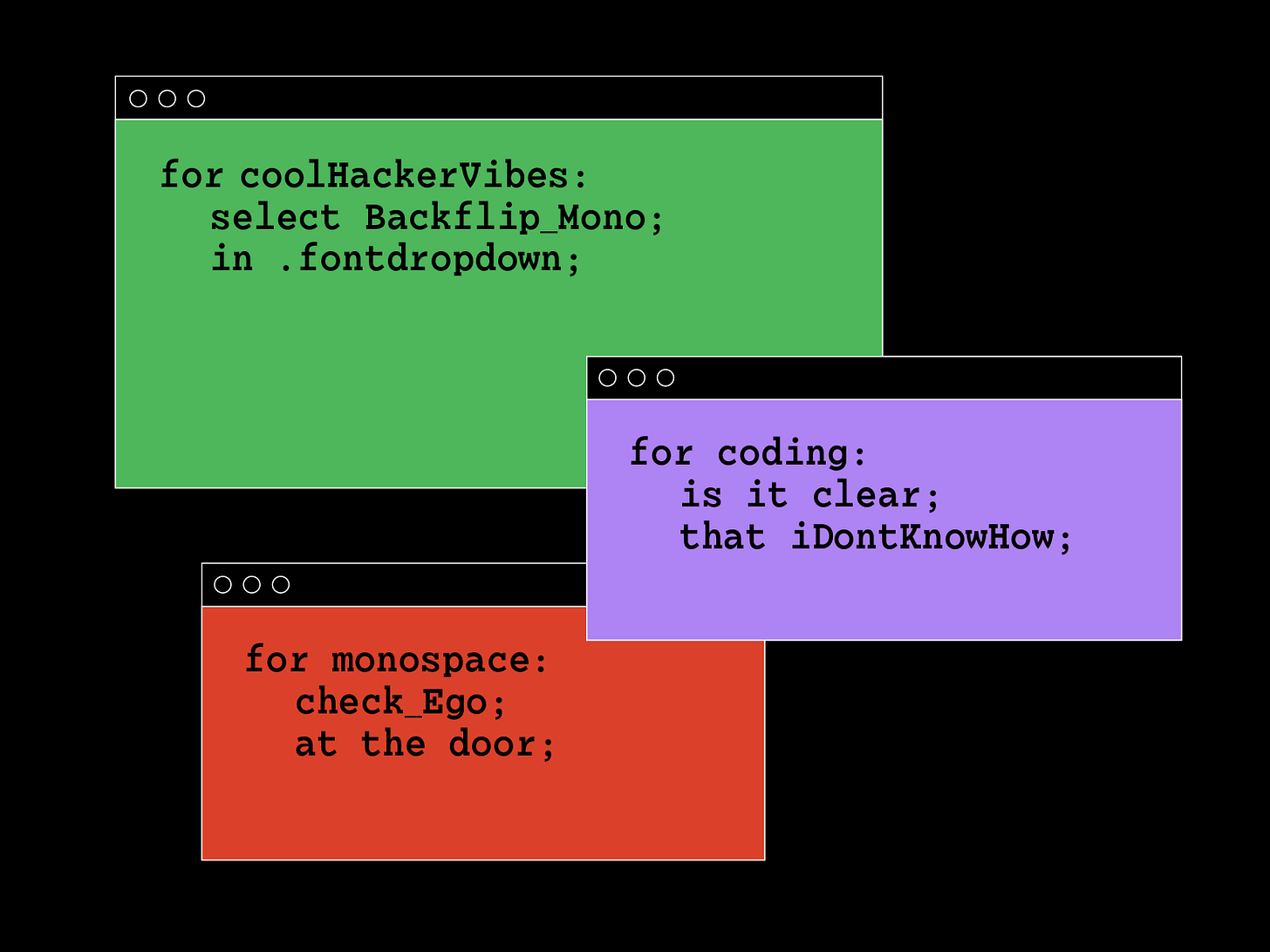
Week 24: Backflip Mono
Backflip round 3 y'all!
I brought Backflip back! My plan for this week was to make a monospace. I wanted to design one that felt less mechanical than the versions we typically see.
Before I decided to use Backflip, I was working on a different monospace. It was clear that since I have never designed one before, that this was going to be a challenge. The thing with this kind of font is that you’re battling spacing in an unusual way, so working on the design in tandem is very tricky. After a lot of tinkering and pure frustration, I realized that I probably wouldn’t finish an original monospace in one week. It’s very easy to get stuck on the design because parts of it have to be ugly in order to make the spacing work. I remembered that during the Type West program, whenever monospace was brought up, the instructors would always tell us to make the regular version first. That did not resonated with me until now.
After panicking about my original plan, I realized that I could just use one of the previous designs and translate it into a monospace (aka taking my TypeWest instructors’ advice). So in comes Backflip! It has just enough personality to not give off boring coding vibes and is a 52 Fonts fave. In the end, working on this was way smoother. I feel like I actually learned how to make a monospace instead of spending the week ripping my hair out.
I truly do like where this ended up. I like that it rides the line of display and text. I picture this being used on a lot of things but if anyone uses it for a scene in a movie where there’s a hacker using a computer and the screen is just green with random code, I will die happy!!!